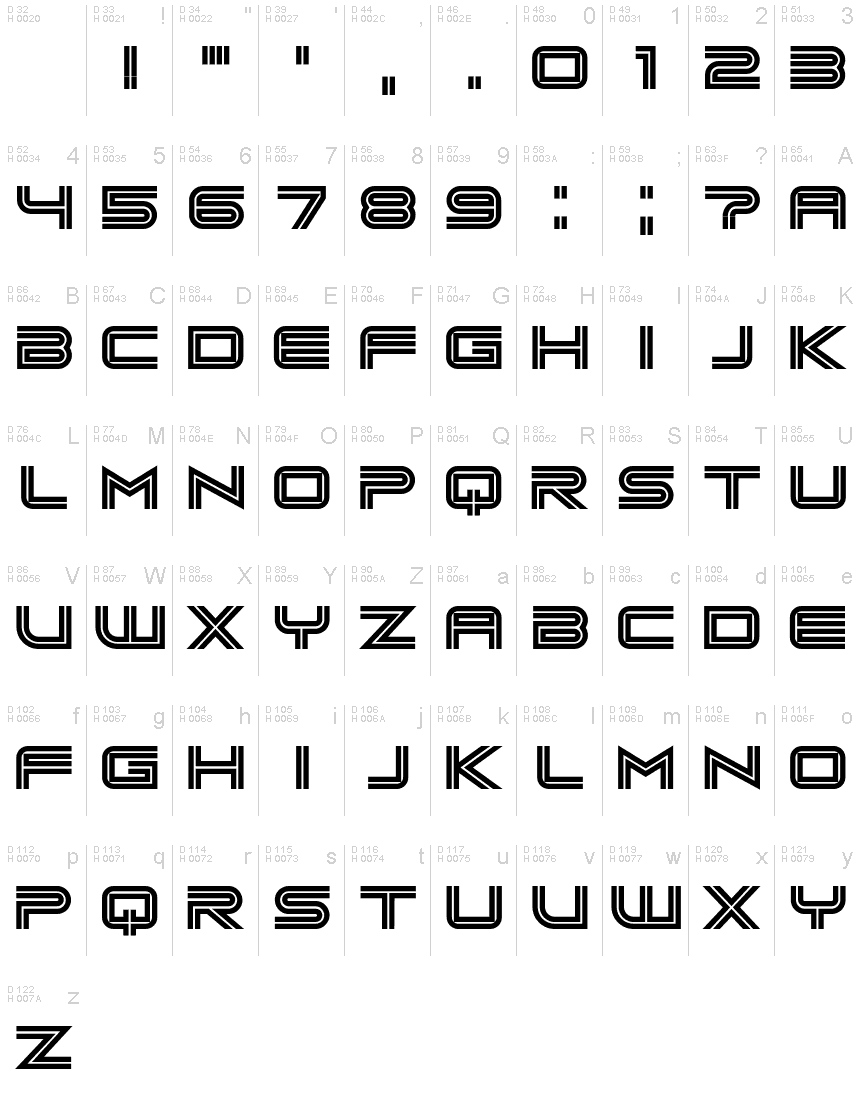
Arachide Book Regular
Arachide Book, a distinctive member of the Arachide font family, is the brainchild of typeface artist Vladimir Nikolic. This display typeface boasts a bold weight that commands attention, making it an ideal choice for impactful headlines and attention-grabbing signage. The font's architecture reveals a stunning interplay of solid forms and negative space that creates a visual rhythm sure to captivate any audience.
Its aesthetic appeal lies in its modernist structure coupled with an almost industrial flair—perfect for design projects that aim to convey strength and innovation. Whether used in digital media, print advertising, or creative arts, Arachide Book offers versatility while maintaining its unique character.
Given its bold nature and stylized features, Arachide Book is especially well-suited for branding initiatives, poster designs, or any creative endeavor where a strong visual statement is essential. Its assertive lines and contemporary feel ensure that any message stands out with clarity and style.